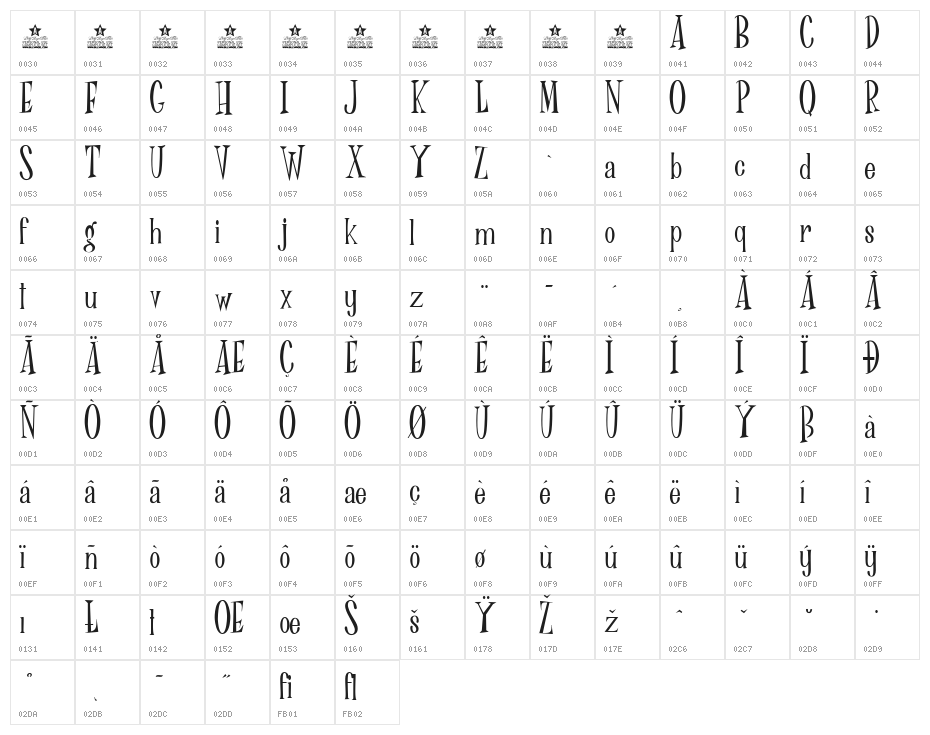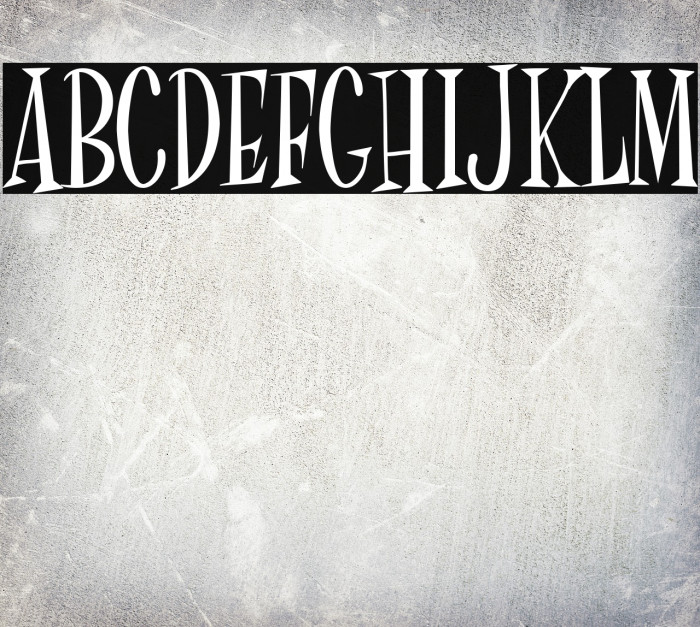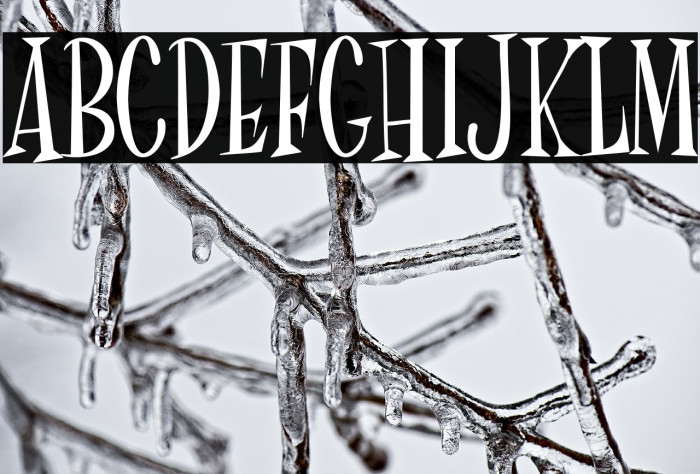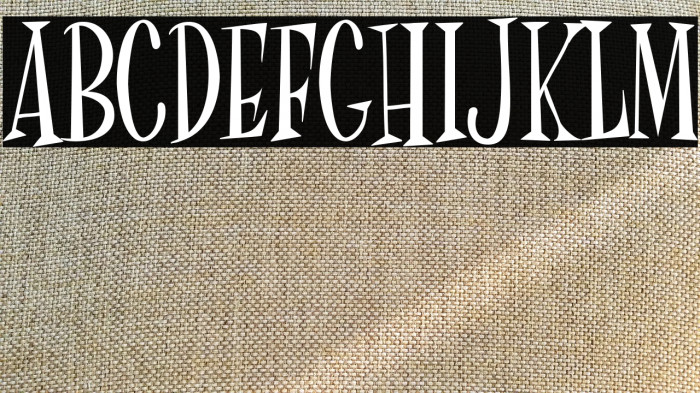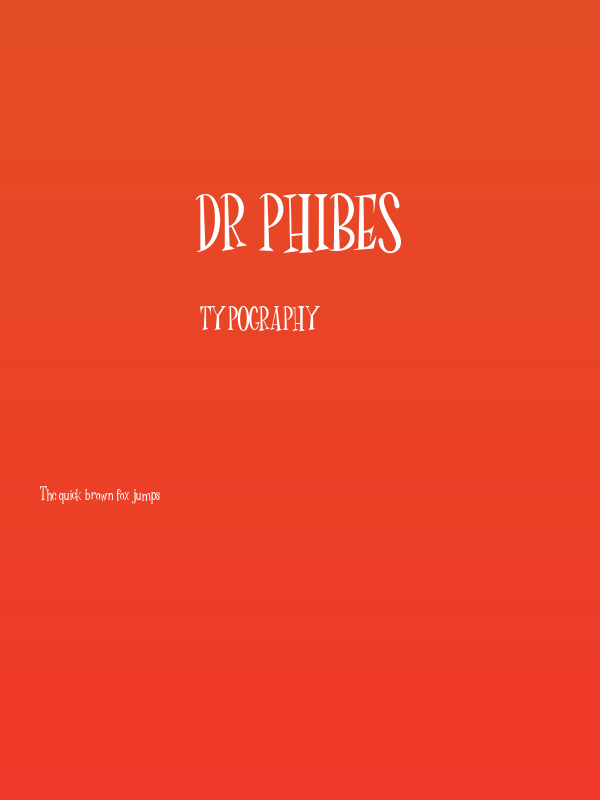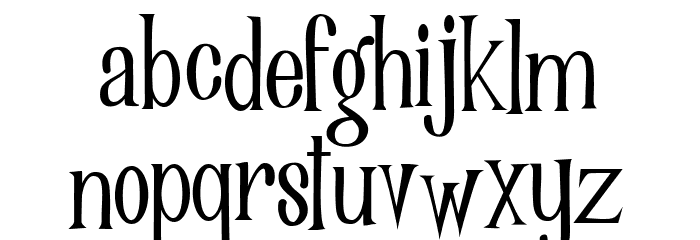
Dr Phibes Font
Dr Phibes Description
This font features a distinctive, whimsical style with elongated and slightly irregular letterforms. The uppercase letters are tall and narrow, with a playful, almost theatrical flair, while the lowercase letters maintain a more subdued, yet still quirky appearance. The overall design is reminiscent of vintage horror or circus themes, with a touch of elegance and drama. The characters have a hand-drawn quality, adding to their unique charm. The font includes a full set of uppercase and lowercase letters, numbers, and a selection of special characters, making it versatile for various design needs.
Overall StyleVintage, Decorative
Use CaseHeadlines, Posters, Invitations
Proposed ProjectsIdeal for Halloween-themed designs, vintage posters, theatrical event invitations, or any project requiring a dramatic and playful typeface.